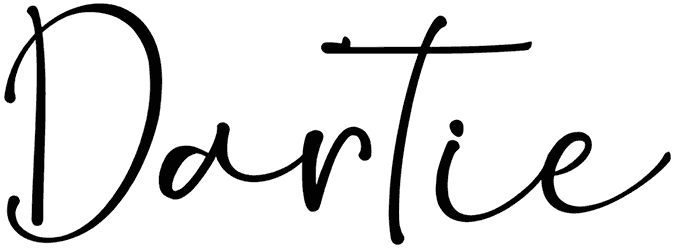
Dartie Font
Engage in a loyal sense, and embrace script fonts, find the wonderful best of them in this most delinquent collection offered by RB! Dartie, with comfy playful textures, is one of those opportunities that not everyone deserves.
This A-Z handwritten font contains a funny essence that can be set on invitations, greeting cards, storybook covers, vision games, and the like to shine and warranty a booming effect. It’s fantastic how much time you can save by going with this asset.